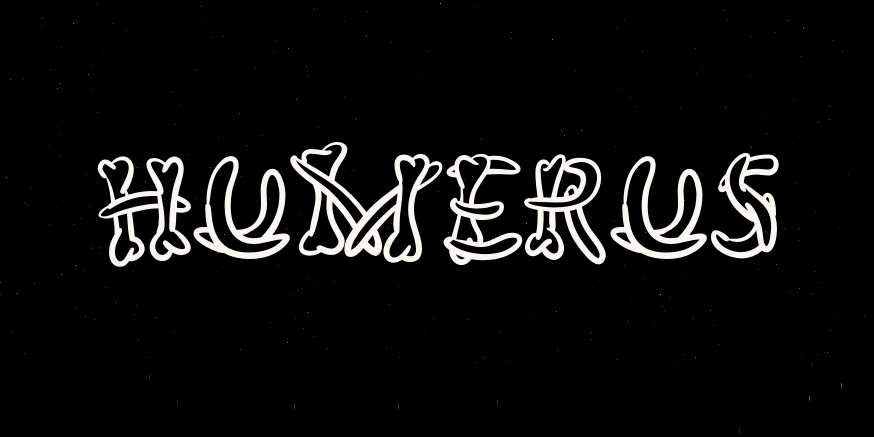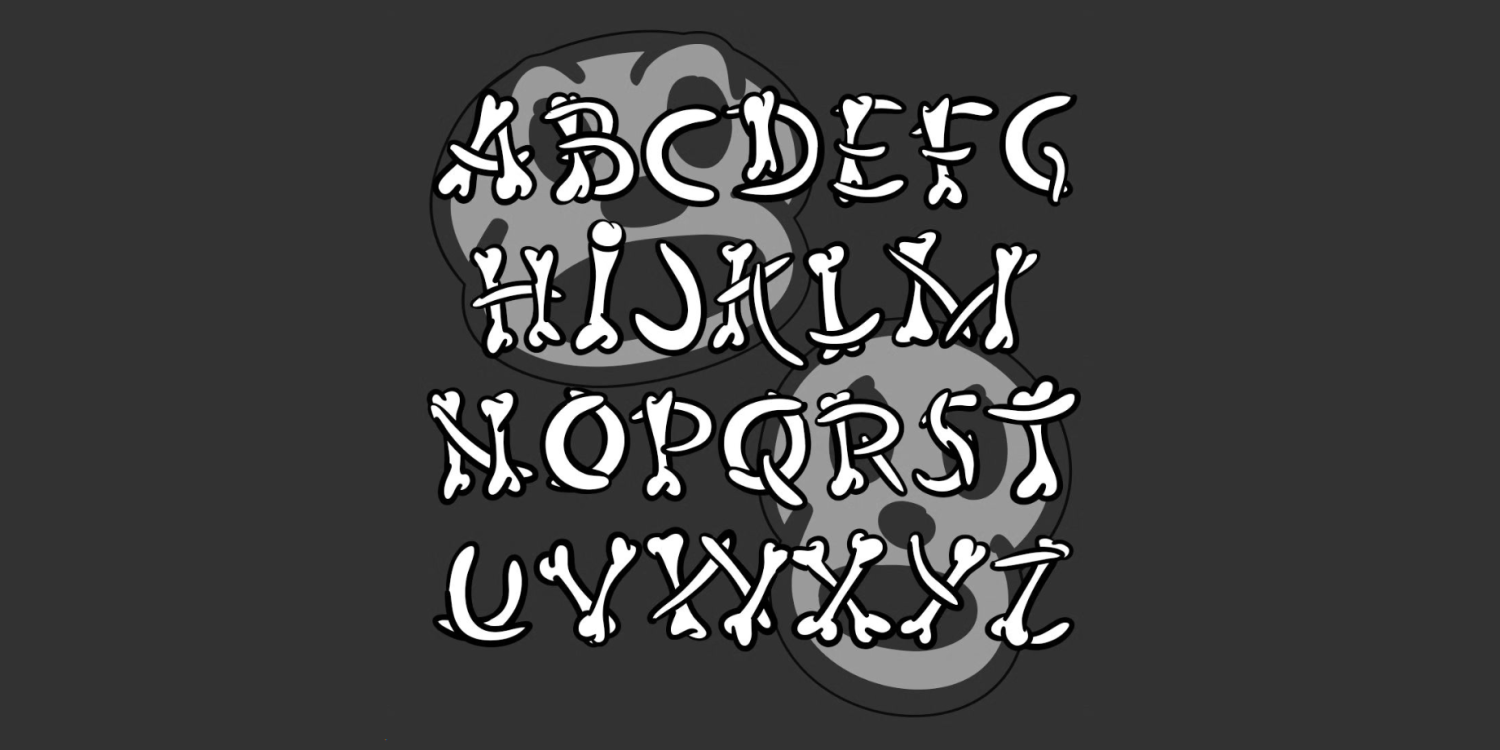
Humerus
Humerus is a funny/spooky font with letters composed of human bones. It could have been horrific, but it's not, in the spirit of Halloween. The caps lean slightly left, the lowercase slightly right. If YoU tYpE LiKe ThIs you get the best effect. Includes a Fill font that can be layered behind the calligraphic outlines to create white bones on a dark background. Inspired by the hand-lettered credits of the film "Abbott and Costello Meet Frankenstein."